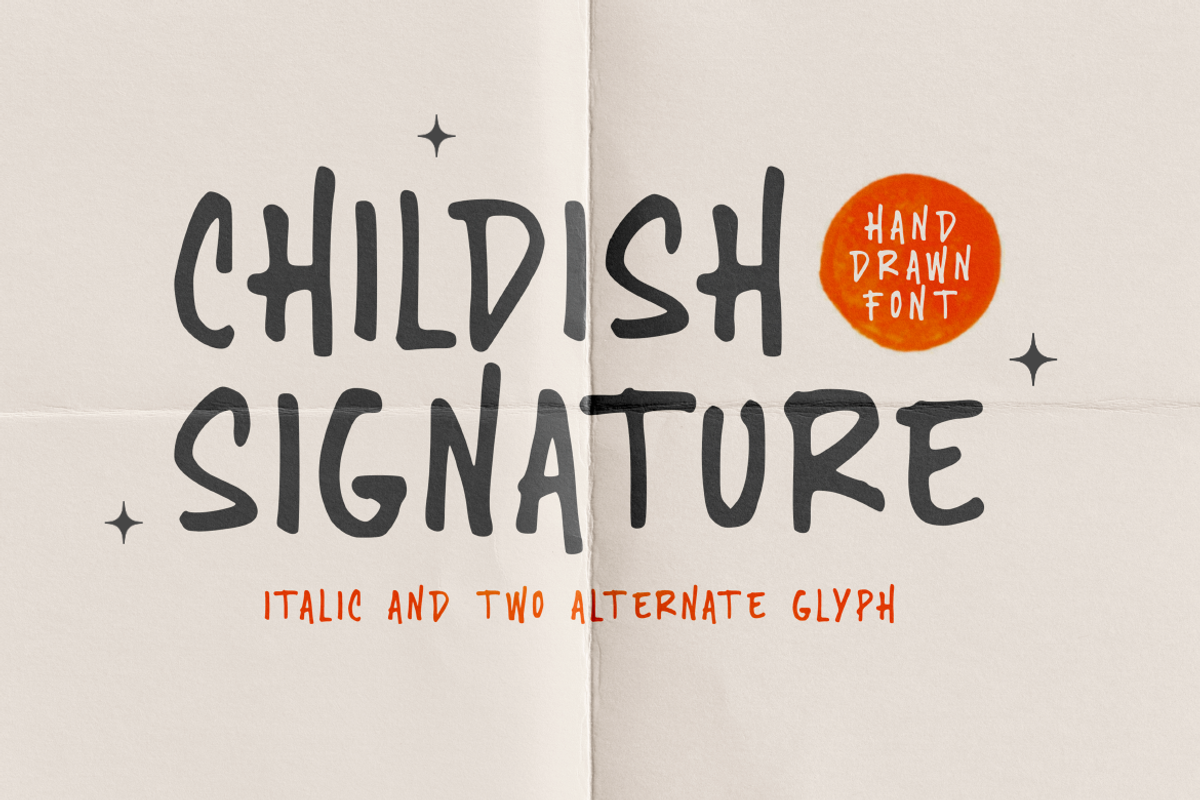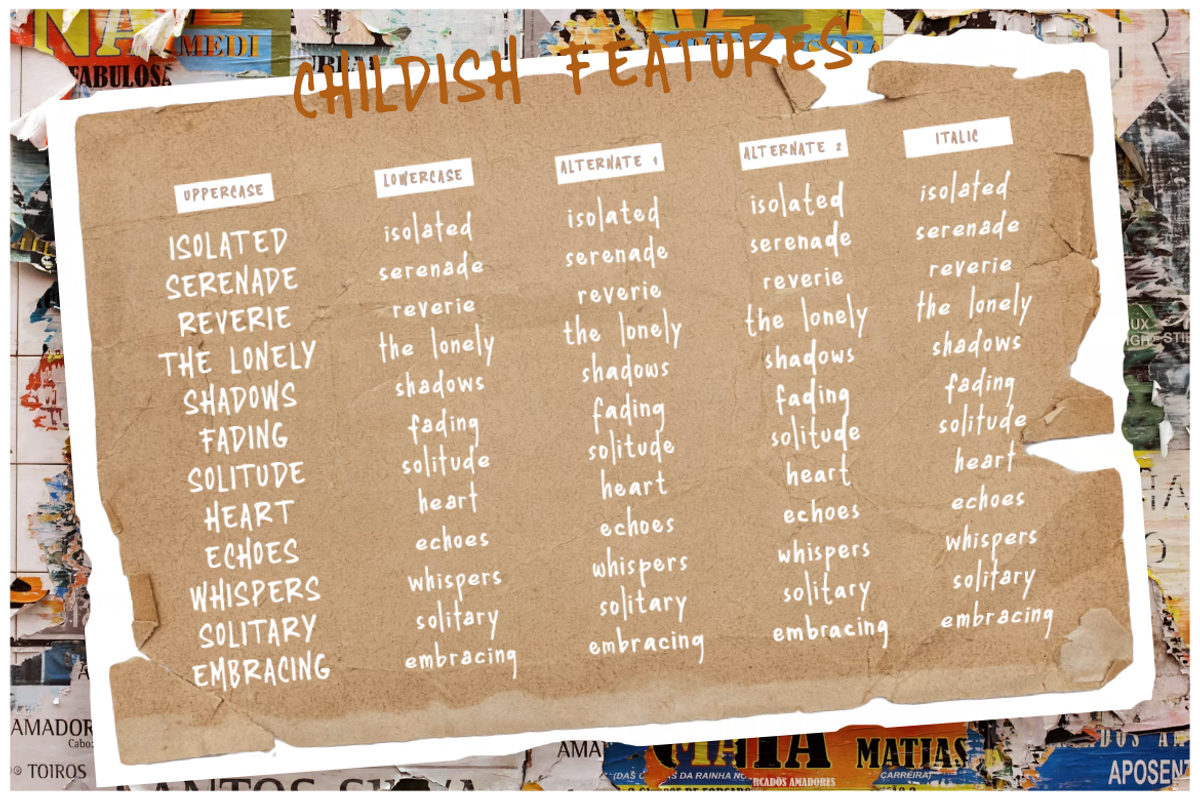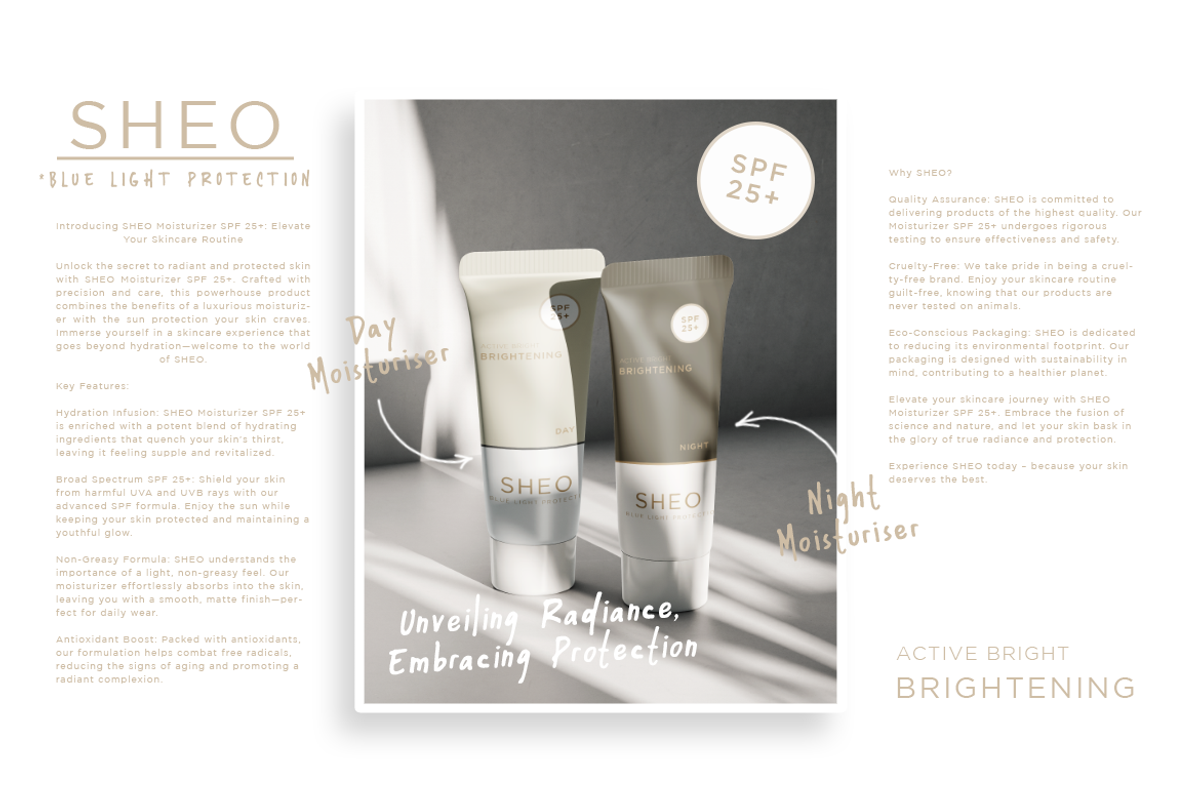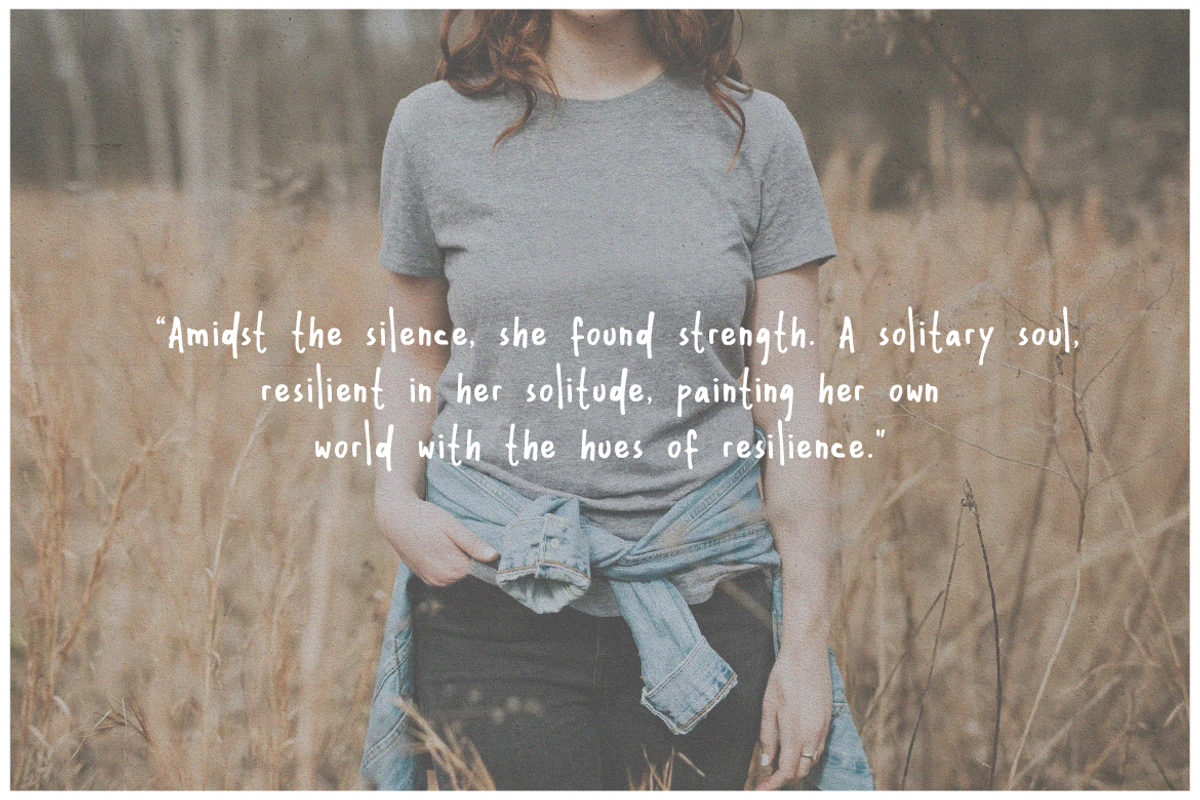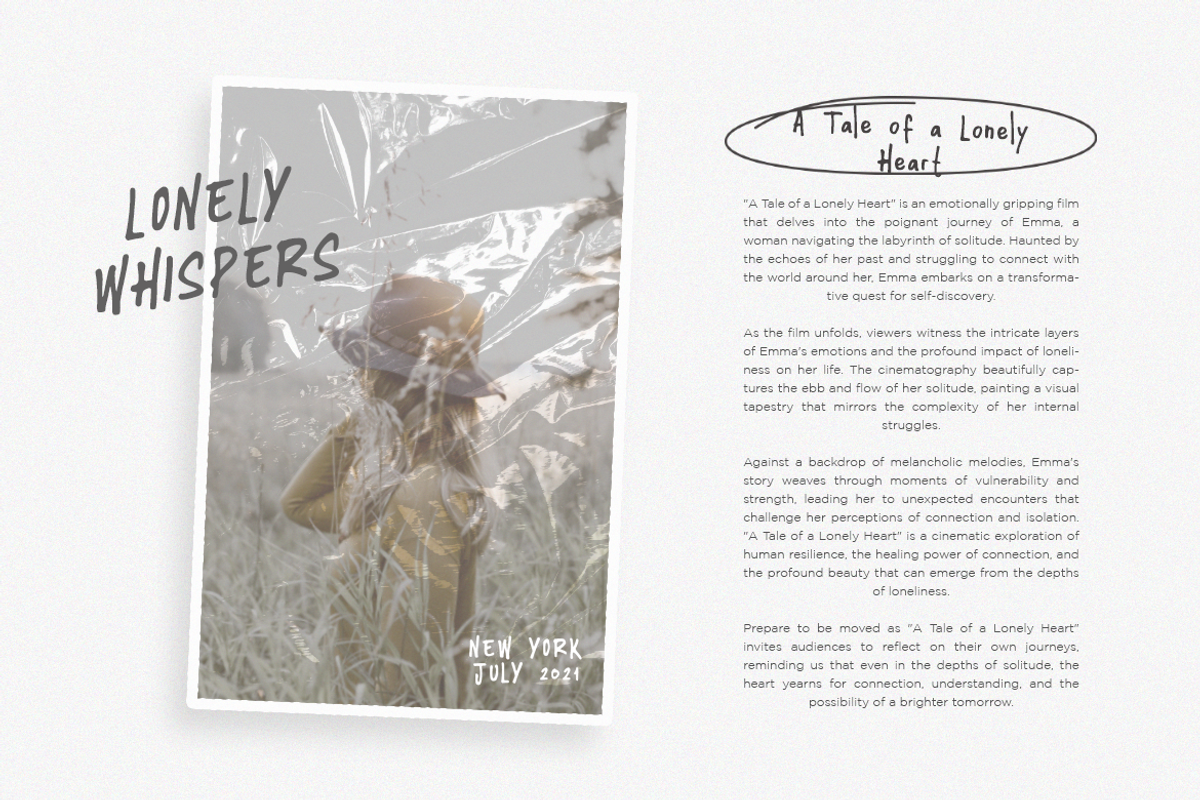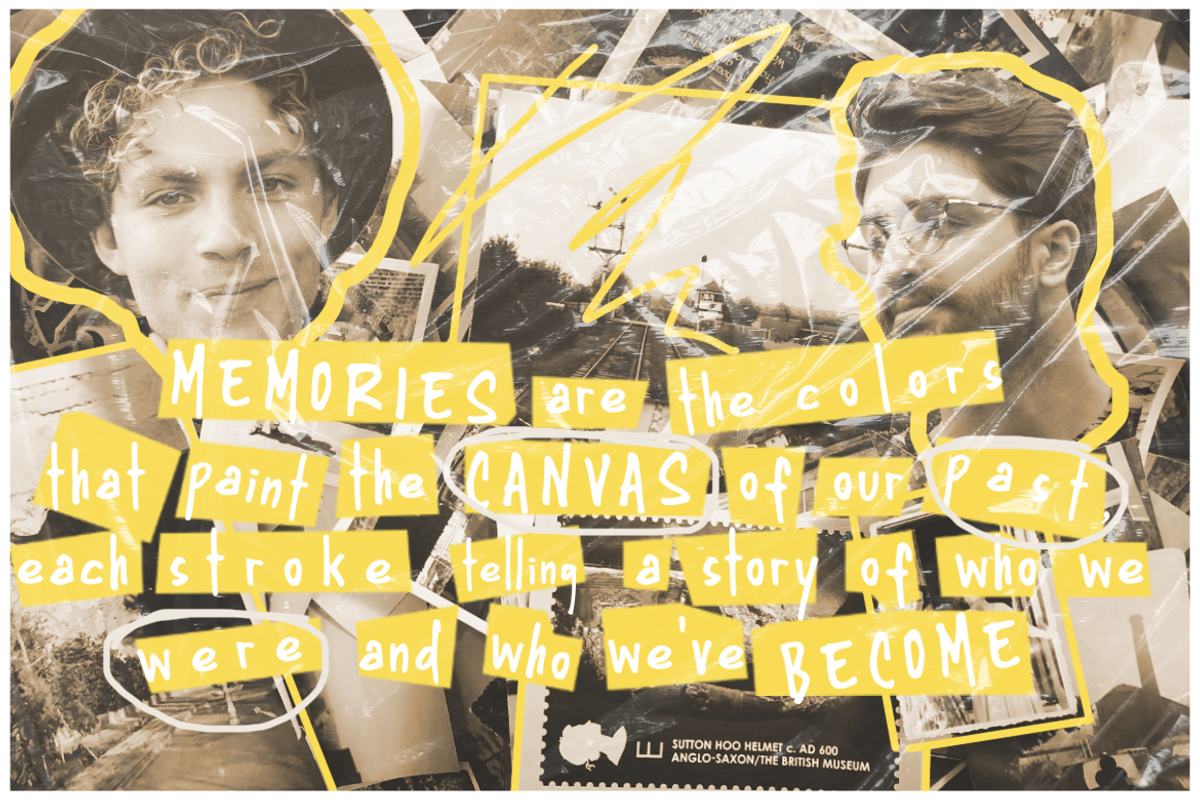
Childish signature font
Childish Signature, a font that brings a playful and whimsical touch to your projects. With its signature-style handwriting, this font exudes a charming and carefree vibe, perfect for adding a touch of youthful joy to your designs.
"Childish Signature" doesn't just stop at its delightful appearance—it offers a plethora of alternate characters to give your text a unique and personalized look. The extensive set of alternates allows you to experiment and create a variety of styles that suit your creative vision.
This font comes in two versatile versions: the regular, for a clean and classic feel, and the italic, adding a dynamic flair to your text. Whether you're working on invitations, branding, social media posts, or any design that requires a fun and lively typeface, "Childish Signature" is your go-to choice.
Transform your projects into a delightful showcase of creativity with the charming and versatile "Childish Signature." Let your designs dance with whimsy and capture the essence of youthful exuberance.